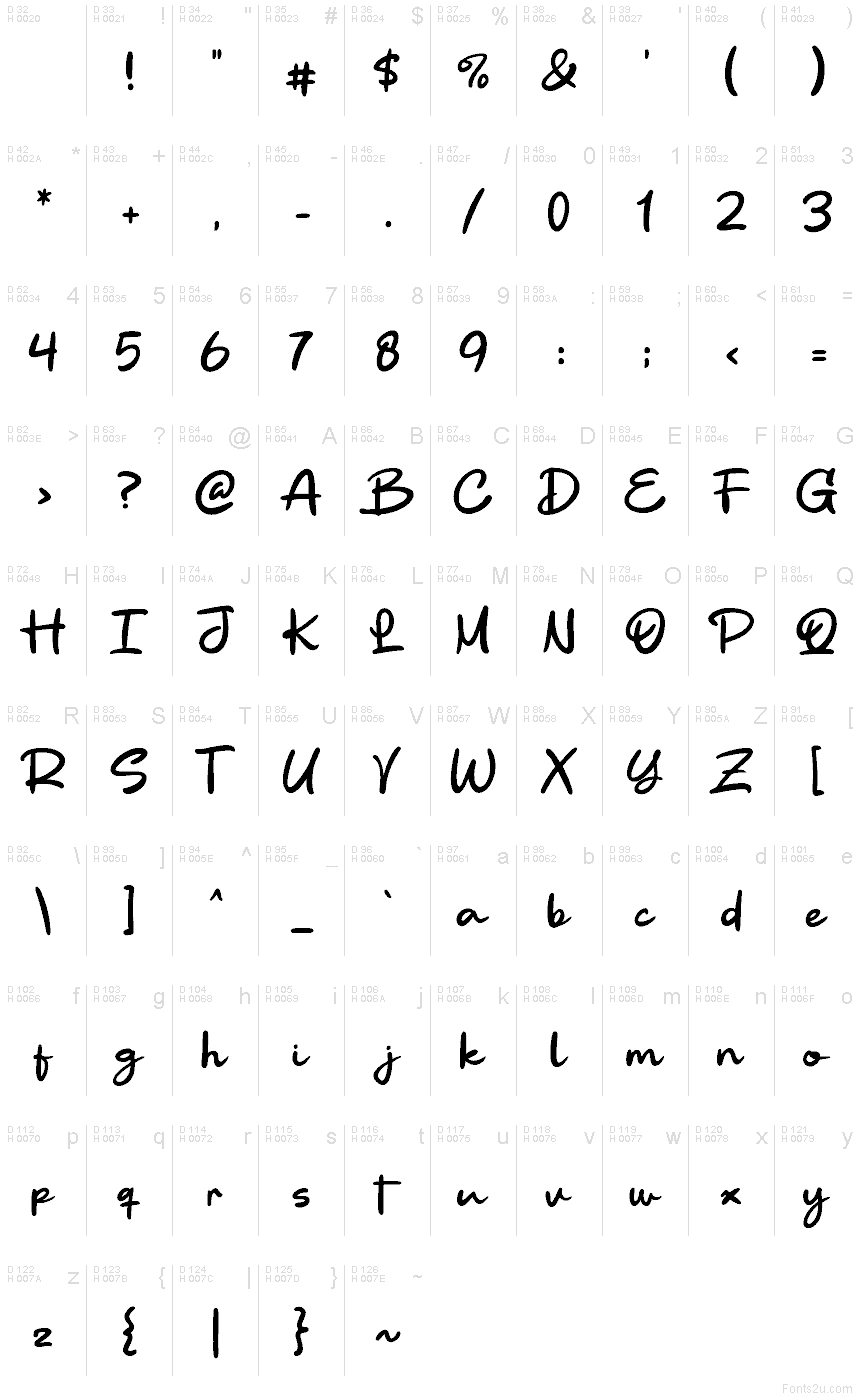
Birthlong
Birthlong font by Khurasan is a free medium casual handwritten script font. It solves the common “too messy vs. too formal” problem: smooth, elastic strokes and rounded terminals keep it friendly, while a steady rhythm and roomy spacing preserve clarity at small and medium sizes. The slight rightward slant and inky, brushed texture add warmth without sacrificing quick readability.
Using Birthlong, headlines and short lines sing—think brand marks, product packaging, quote graphics, café menus, event invites, and social posts. This free font shines when you let it breathe; bump the line height a touch and pair it with a clean geometric sans for body copy to anchor its easygoing energy.